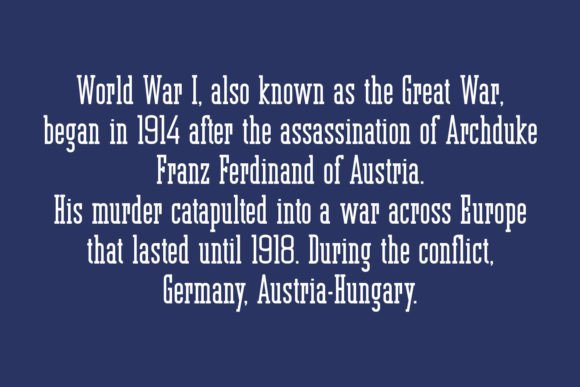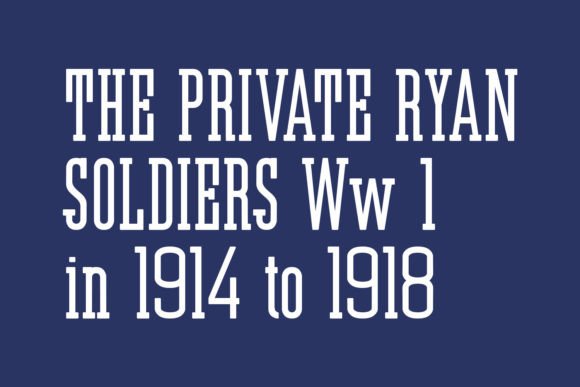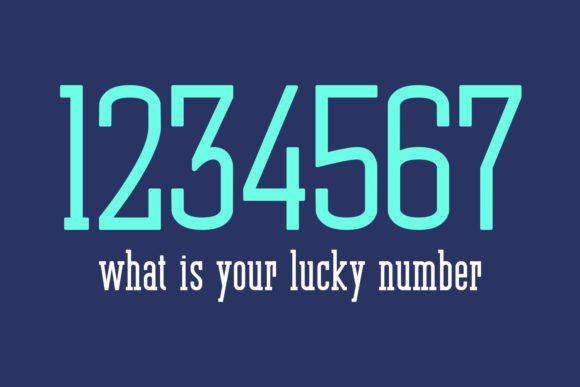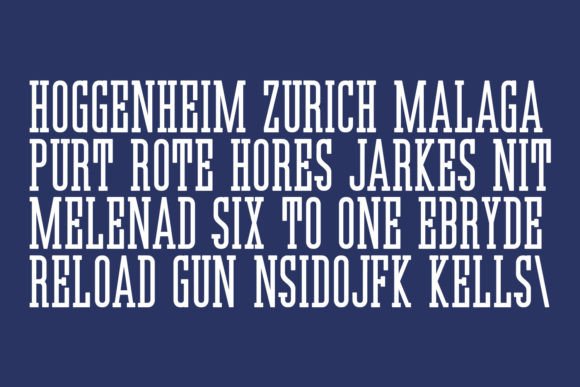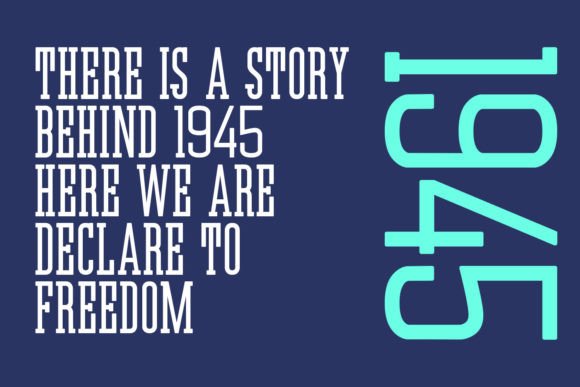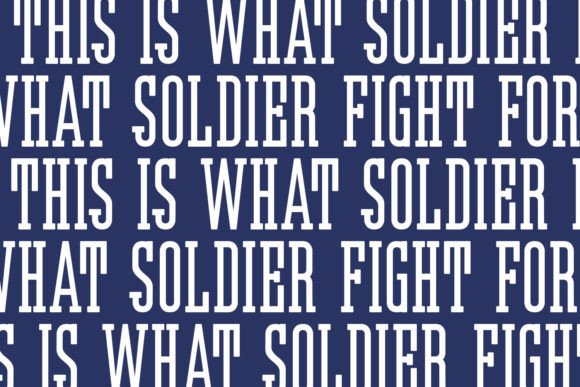
Introduction to Servat Font
Remember the moment when you stared at a blank canvas, eager to bring your creative vision to life? The cursor blinks, and you start searching for the perfect font to set the tone for your project. Amidst the endless options, one name keeps popping up: Servat Font. This retro semi-slab serif font is about to become your new go-to design resource.
Servat Font is a high-quality addition to any designer’s library, boasting a unique aesthetic that can elevate any creative project. Whether you’re working on a design for a website, social media, or even a marketing campaign, Servat Font’s versatility will help you achieve a professional look with ease. Plus, with its transparent background, you can seamlessly integrate it into any design.
What sets Servat Font apart is its ability to add a touch of sophistication to even the most straightforward designs. As a free download, it’s an incredibly valuable asset for designers, and its potential is simply waiting to be unleashed.
Key Features of Servat Font
- Designed with precision, offering a crisp and clear display at resolutions up to 300 DPI
- Comes in a single font weight, ideal for projects requiring a clean and minimalist aesthetic
- Supports a wide range of languages, making it a versatile design resource for global projects
Honest Review: Servat Font
As a designer, I’m always on the lookout for high-quality design resources to elevate my creative projects. Recently, I had the chance to try out the Servat Font, and I’m excited to share my honest review.
- ✨ High-quality design: Servat Font is a beautifully crafted font that’s perfect for any creative project. Its clean and elegant lines make it a great choice for logos, typography, and other design elements.
- ⚠️ Limited font styles: While Servat Font is a high-quality font, it’s available in a limited number of styles, which may not be suitable for all design projects.
Overall impression:
I’m really impressed with the Servat Font, and I think it’s a great addition to any designer’s toolkit. While it has some limitations, its high-quality design and free download make it a valuable resource for creative projects.
Servat Font: A High-Quality Design Resource
The Servat Font is suitable for various creative projects, including:
– Presentations
– Infographics
– Logos and branding